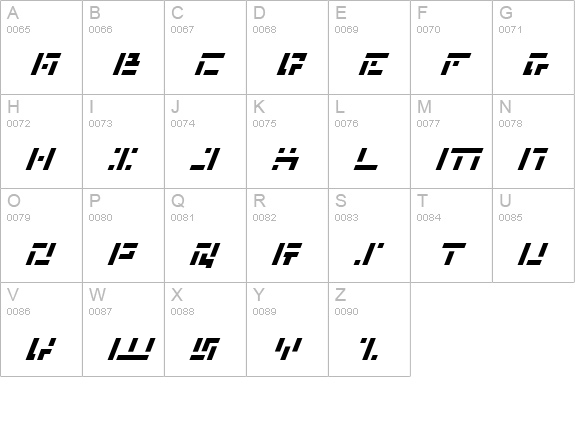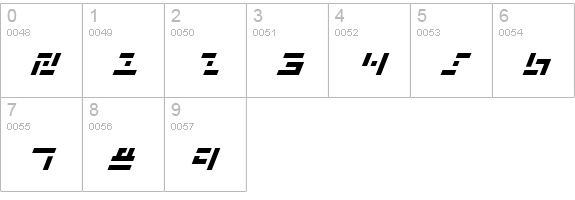
Missile Man Italic is a distinctive, italic variant in the Missile typeface family \xE2\x80\x94 well suited to design and typography projects.
Missile Man Italic font is a sleek and modern typeface that adds a touch of sophistication to any design project. With its slanted and bold lettering, this font exudes a sense of power and dynamism. Whether you're working on a poster, logo, or website, Missile Man Italic font is sure to make a statement. The best part? It's completely free to download at FontsMarket.com. Don't miss out on this versatile and eye-catching font that will elevate your designs to the next level. Download Missile Man Italic today and let your creativity soar!